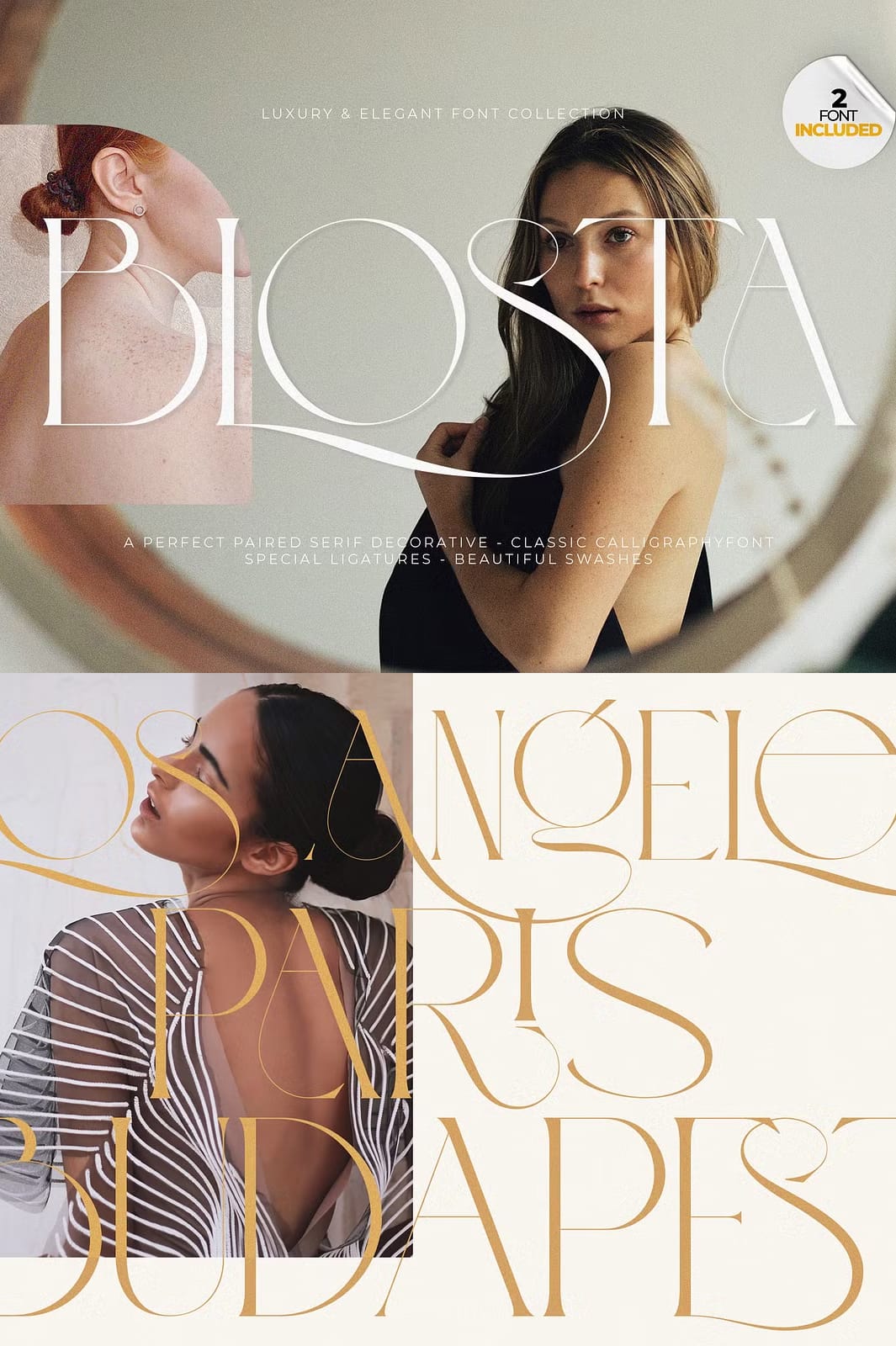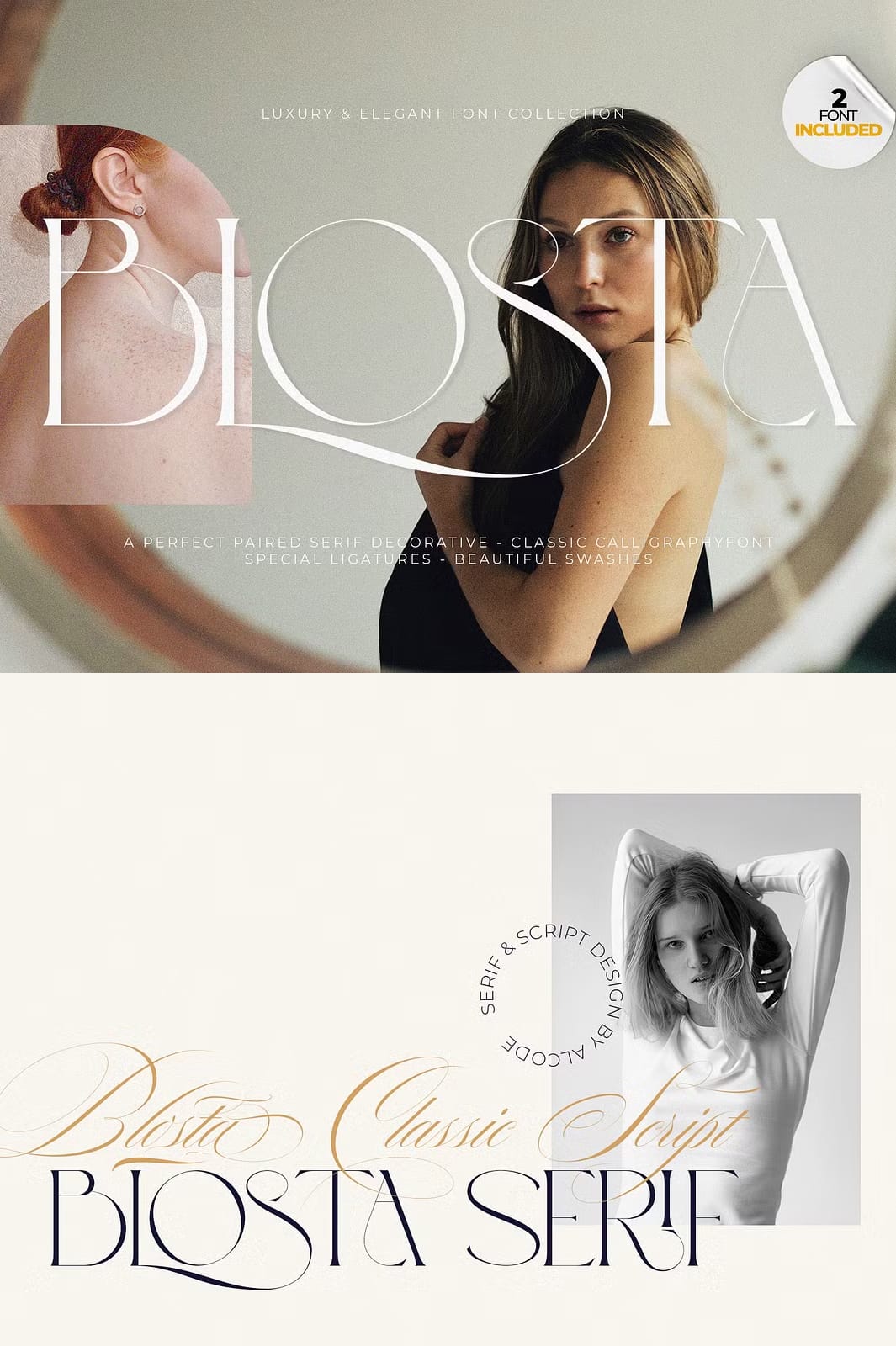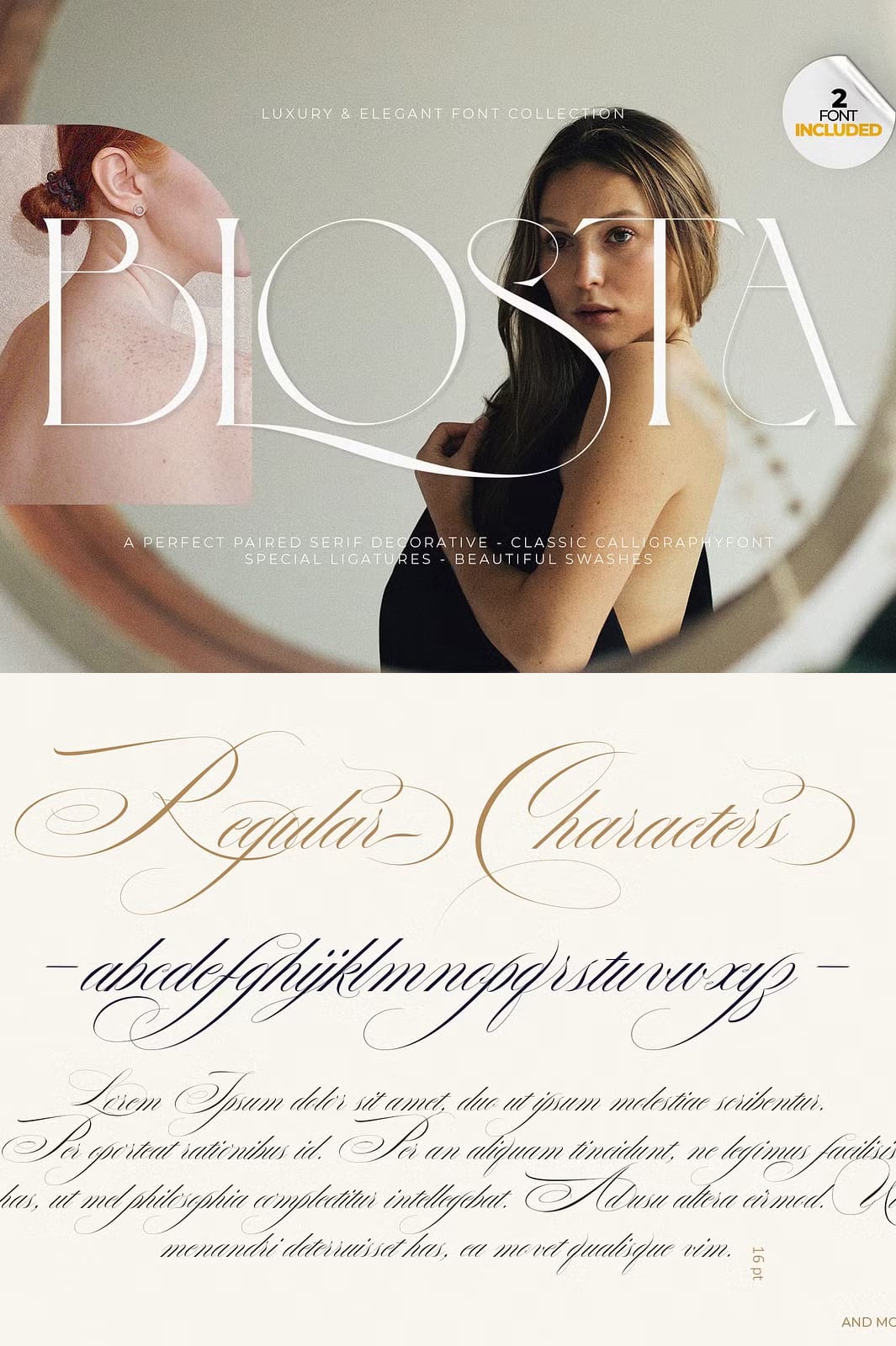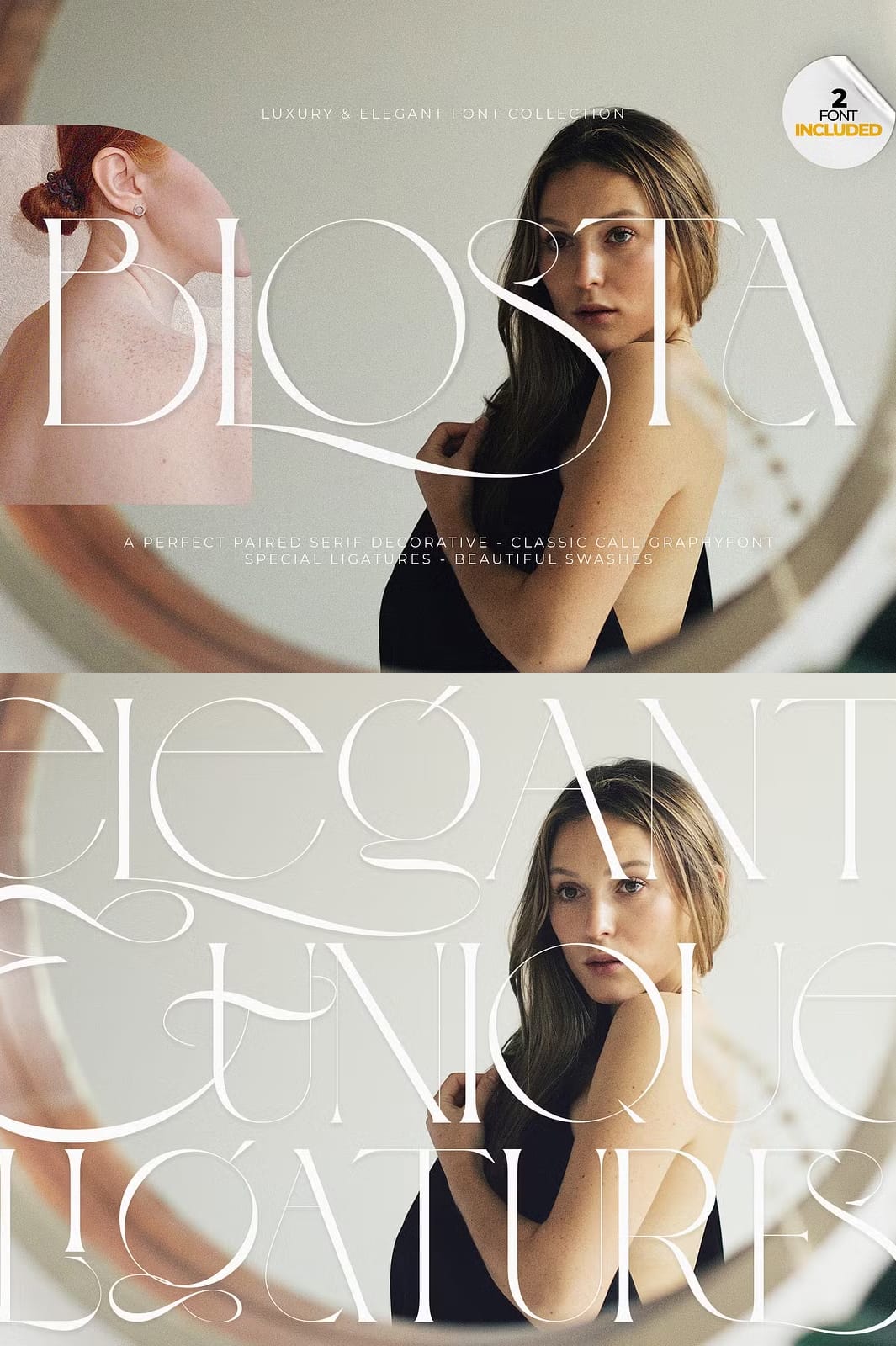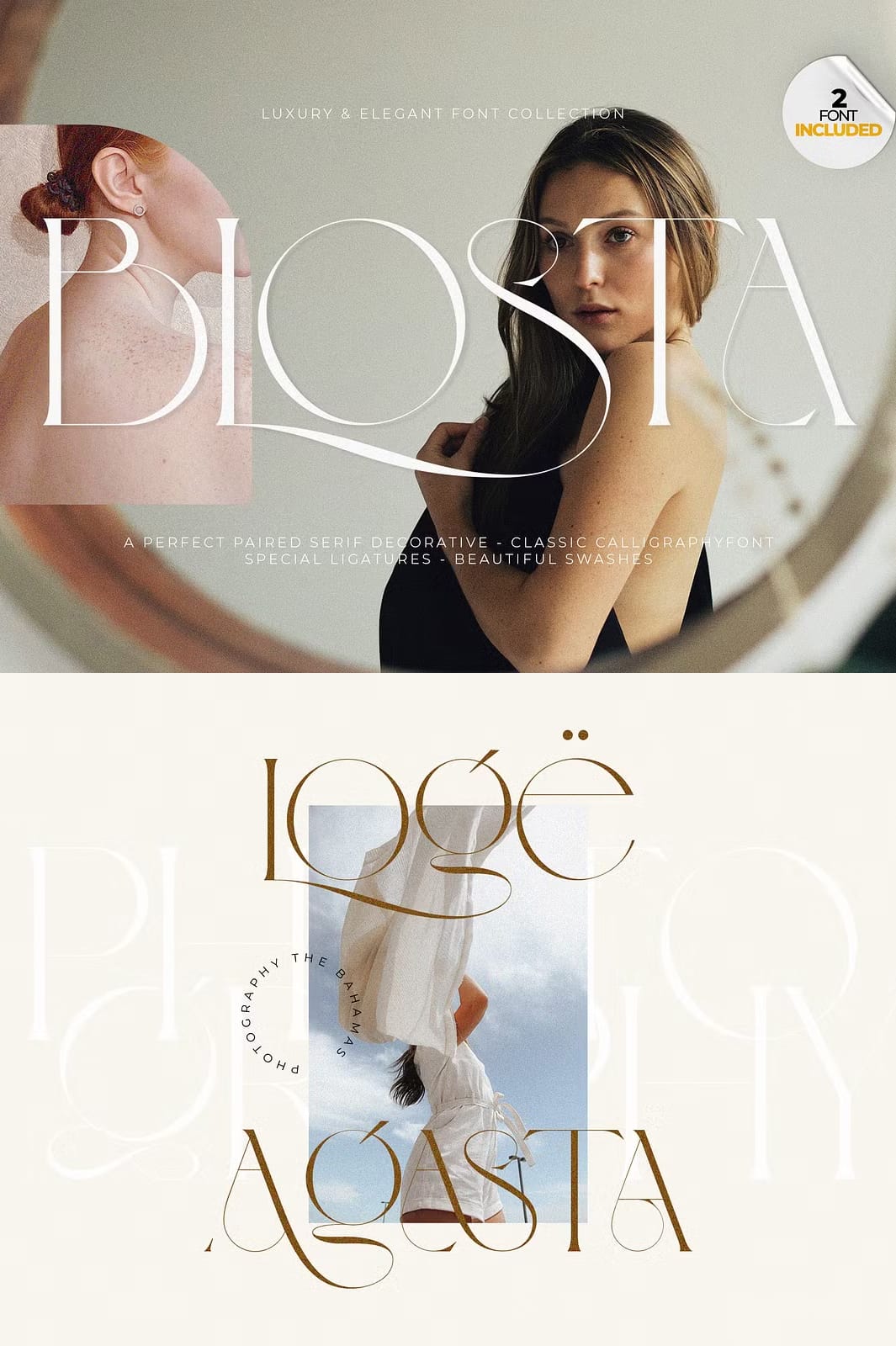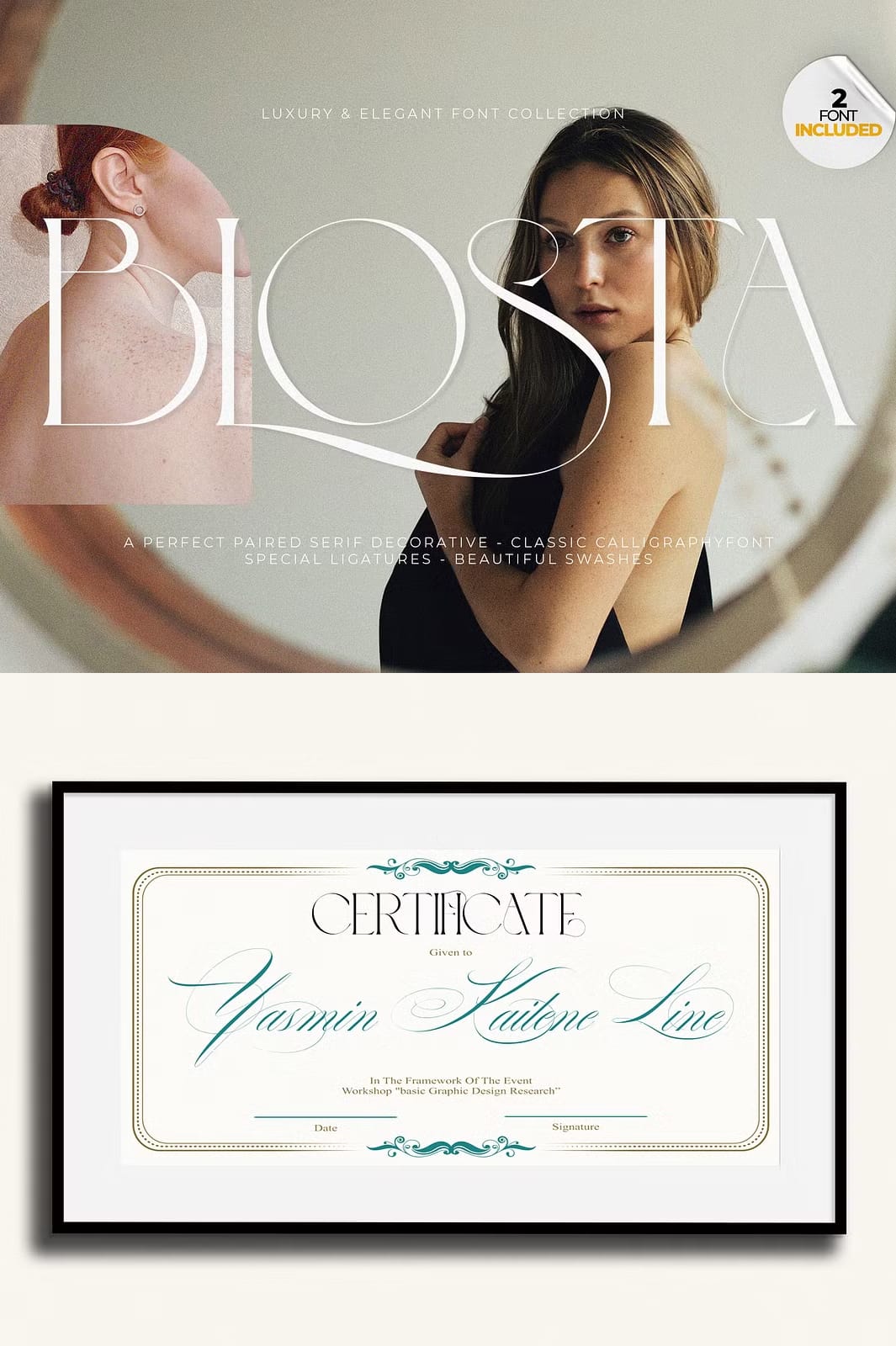
A Luxurious and Elegant Typeface Pair for Sophisticated Designs
Blosta Font Duo is an exquisite combination of two distinct yet harmonious typefaces designed to bring luxury, elegance, and a trendy aesthetic to your creative projects. This font duo pairs a beautifully crafted serif decorative font with an elegant calligraphy typeface, offering designers the perfect tools to create stunning visuals that stand out.
The Serif Decorative Typeface: Classic Meets Contemporary
The serif component of the Blosta Font Duo features refined letterforms that blend classic typography traditions with contemporary design elements. Its decorative details add character without overwhelming readability, making it ideal for headlines, branding materials, editorial layouts, packaging designs, and more. The sharp serifs combined with subtle flourishes give your text an air of sophistication while maintaining clarity.
The Calligraphy Typeface: Graceful Fluidity in Every Stroke
Complementing the serif is the graceful calligraphy typeface that adds fluidity and personality to your designs. With its smooth curves and artistic strokes, this script font injects warmth and charm into invitations, logos, social media graphics, wedding stationery any project where elegance is paramount. The contrast between the structured serif letters and flowing script creates dynamic visual interest that captivates audiences.
Why Choose Blosta Font Duo?
- Diverse Applications: Perfect for fashion branding, luxury packaging, editorial content, wedding invitations or any project requiring both structure and flair.
- Unique Style: Combines classic serif sophistication with modern calligraphic artistry for versatile design possibilities.
- User Friendly: Both fonts are carefully crafted for legibility at various sizes while retaining their distinctive personalities.
- Cohesive Pairing: Designed as a complementary duo ensuring seamless integration across all types of creative work.